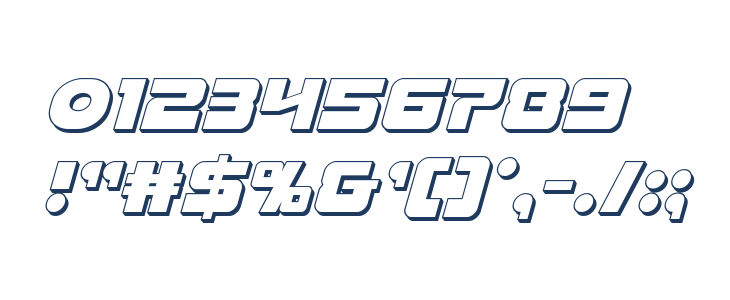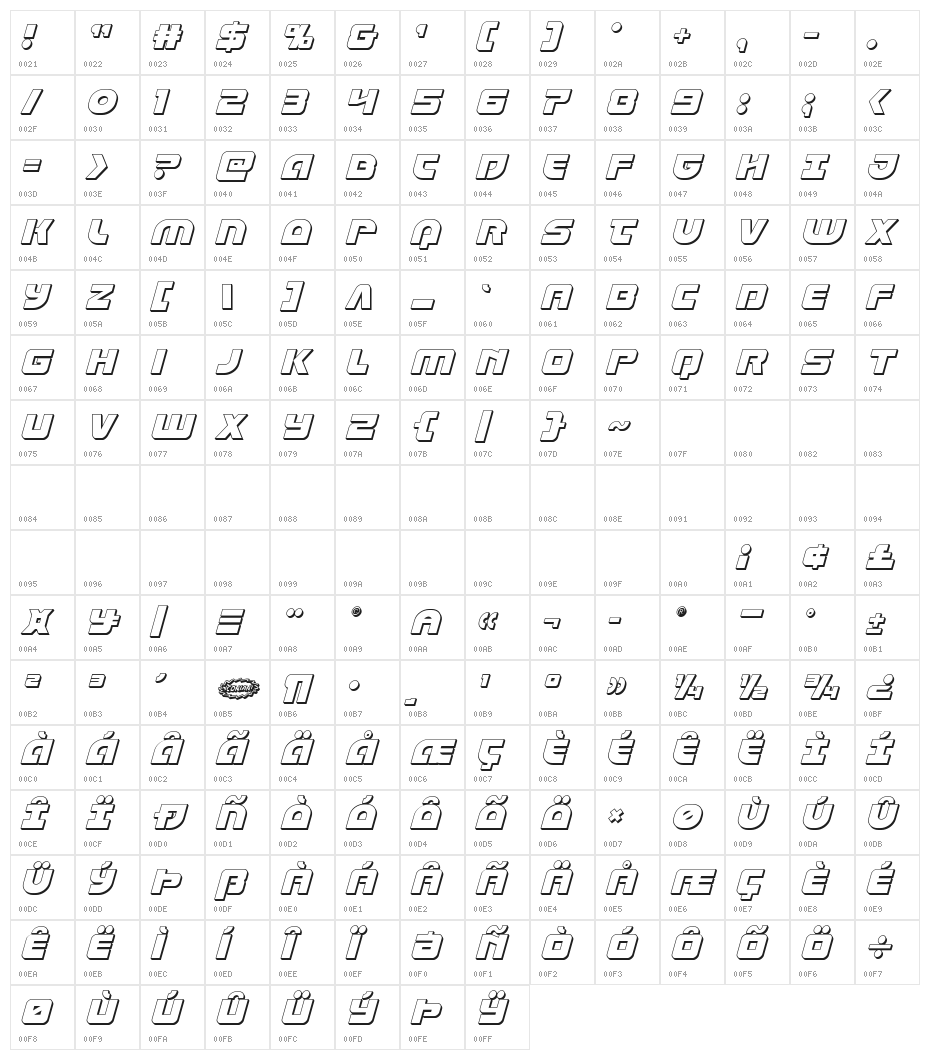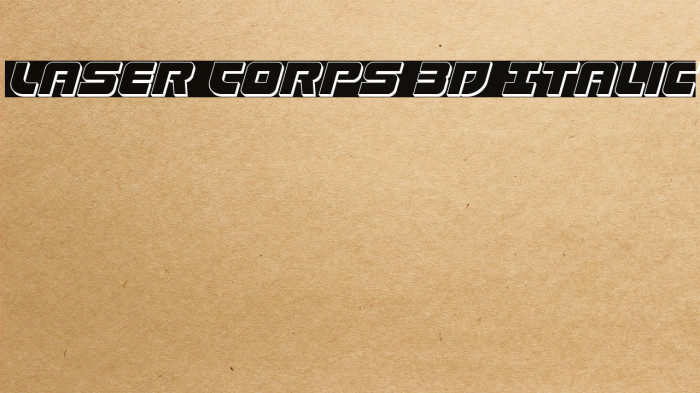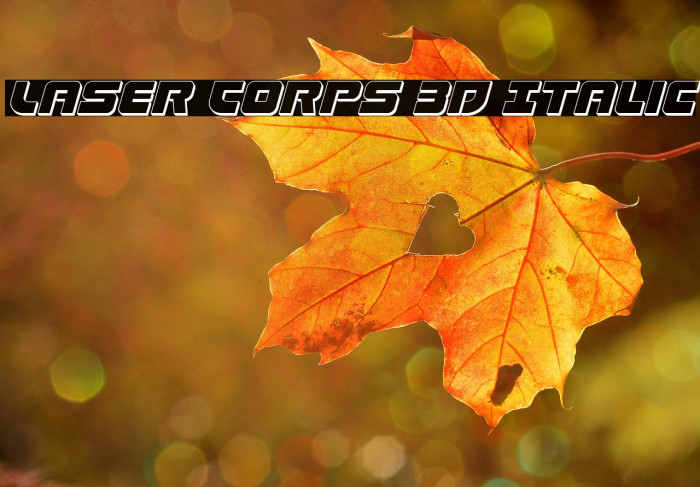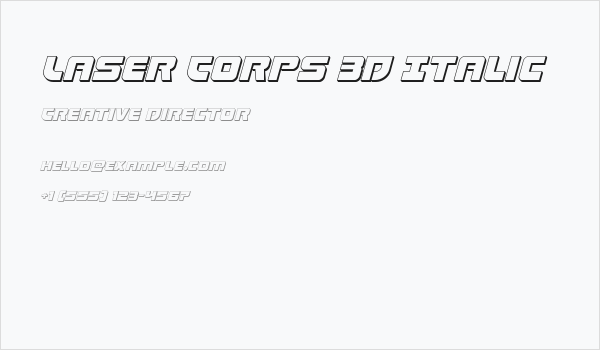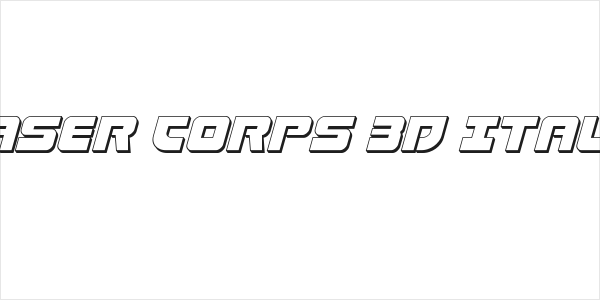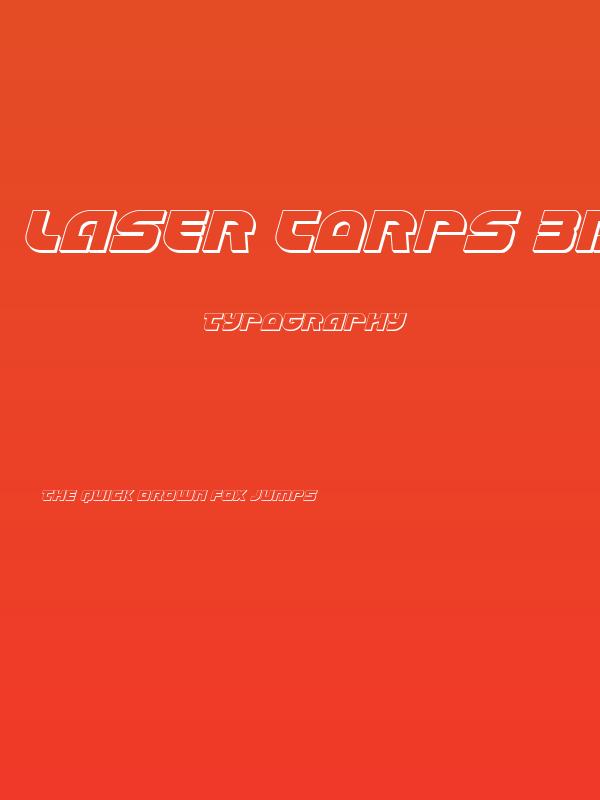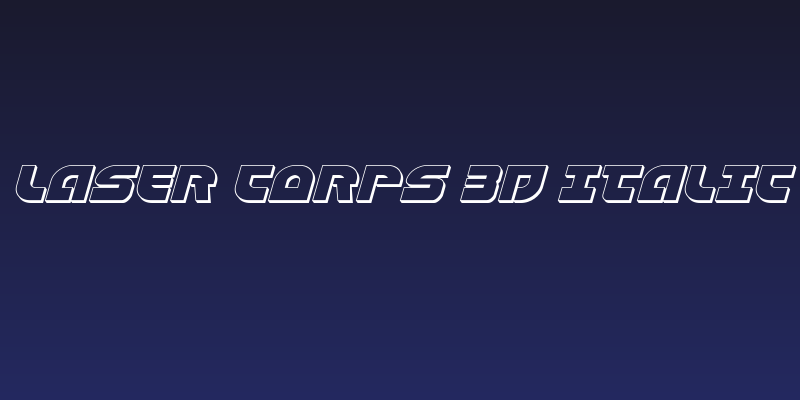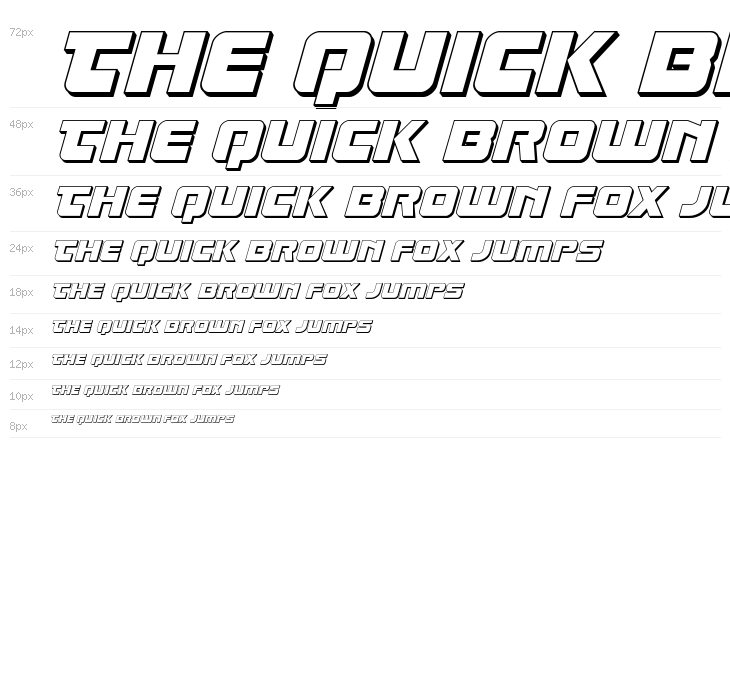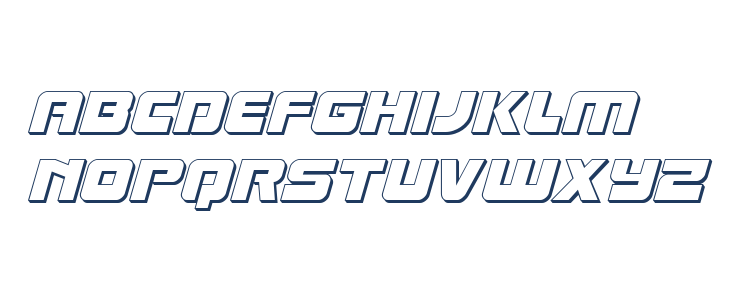
Laser Corps 3D Italic Font
Laser Corps 3D Italic Description
This font features a bold, futuristic design with a 3D effect, characterized by its italicized, angular letters. The strokes are thick and consistent, creating a strong visual impact. The font has a distinct outline that enhances its three-dimensional appearance, making it stand out. The characters are uniformly spaced, contributing to a clean and organized look. Its modern style is suitable for projects that require a dynamic and eye-catching typeface.
| Proposed Projects | Ideal for sci-fi themed designs, video game titles, technology branding, and posters. |